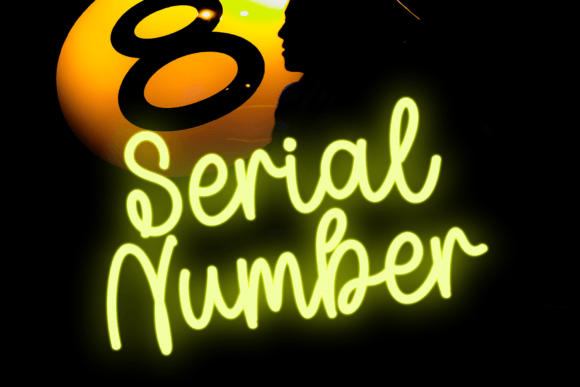
Discover the Unique Charm of Serial Number Font: Elevate Your Designs with a Personal Touch
In the world of typography, fonts play a crucial role in conveying messages, expressing emotions, and creating a lasting impression. With the vast array of fonts available, finding the perfect one that stands out from the crowd can be a daunting task. However, if you’re looking for a font that exudes uniqueness and character, look no further than Serial Number Font. This incredibly handwritten font is designed to capture your heart and become a true favorite in your typography collection.
What is Serial Number Font?
Serial Number Font is a distinctive handwritten font that boasts a one-of-a-kind charm. Its unique design makes it an excellent choice for creating eye-catching logos, branding materials, and quotes that demand attention. Every letter in this font has been carefully crafted to possess a beautiful, individual touch that will breathe life into your designs.
Key Features of Serial Number Font
- Unique Handwritten Style: Serial Number Font features a genuinely handwritten style that sets it apart from more conventional fonts.
- Highly Versatile: This font is perfect for a wide range of design applications, from logos and branding to quotes and social media graphics.
- Beautifully Crafted Letters: Each letter in the font has been meticulously designed to have its own distinct character, ensuring your designs stand out.
- Ease of Use: Despite its unique style, Serial Number Font is easy to read and use in various contexts.
Exploring the Uses of Serial Number Font
The versatility of Serial Number Font makes it suitable for a myriad of design projects. Here are some of the most popular uses:
- Logo Design: Create memorable and impactful logos that capture the essence of your brand.
- Branding Materials: Enhance your brand’s visual identity with unique and recognizable typography.
- Quotes and Posters: Add a personal touch to inspirational quotes, posters, and social media graphics.
- Packaging Design: Stand out on store shelves with eye-catching packaging that incorporates Serial Number Font.
Tips for Using Serial Number Font Effectively
To maximize the impact of Serial Number Font in your designs, consider the following tips:
- Pair with Complementary Fonts: Combine Serial Number Font with simpler fonts to create visual contrast and hierarchy.
- Experiment with Colors: Take advantage of the font’s unique style by experimenting with various colors and gradients.
- Pay Attention to Spacing: Ensure that letters and words have adequate spacing to maintain readability and aesthetic appeal.
- Use it Sparingly: While Serial Number Font is beautiful, it’s best used sparingly to avoid overwhelming the viewer.
Finding Inspiration and Ideas with Serial Number Font
Serial Number Font’s distinctive style can spark creativity and inspire new ideas for your designs. Here are a few ways to find inspiration:
- Explore Typography Trends: Stay updated on the latest typography trends to see how Serial Number Font can be incorporated into your designs.
- Browse Design Communities: Engage with design communities and platforms to see how other designers are using Serial Number Font.
- Experiment with Different Media: Try using Serial Number Font in various design media, such as digital graphics, print materials, and even hand-drawn projects.
Serial Number Font is more than just a font – it’s a design statement. Its unique, handwritten style and beautifully crafted letters make it an excellent choice for designers looking to add a personal touch to their work. Whether you’re creating logos, branding materials, or quotes, Serial Number Font is sure to elevate your designs and leave a lasting impression. So, why settle for ordinary when you can create something truly extraordinary with Serial Number Font?